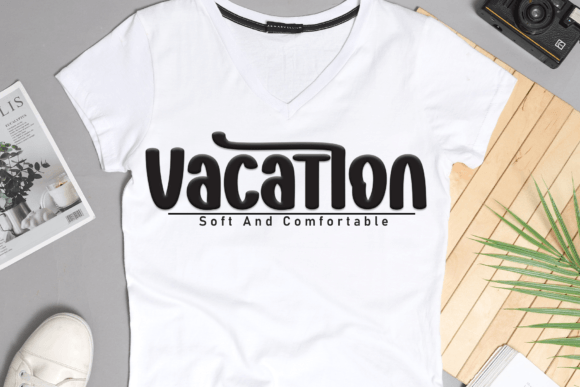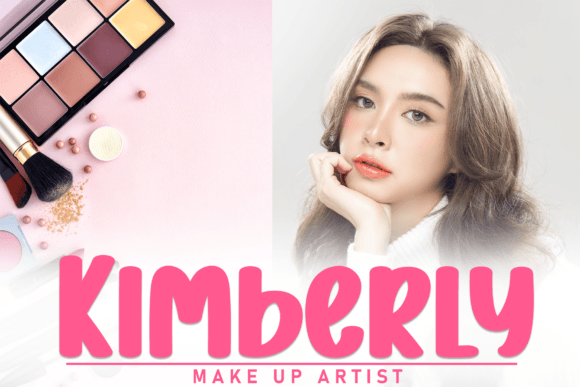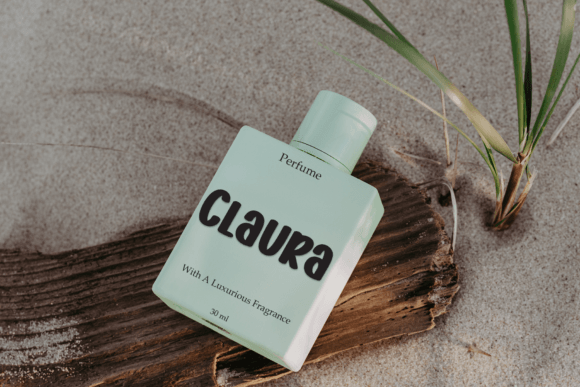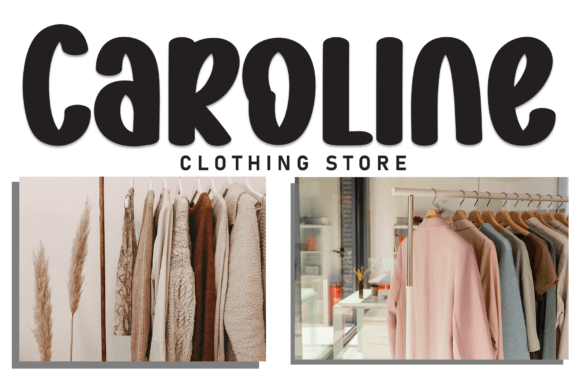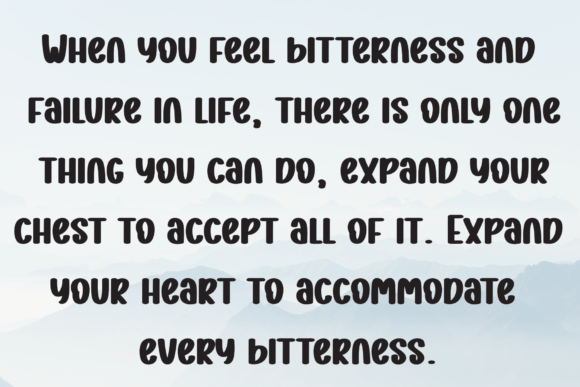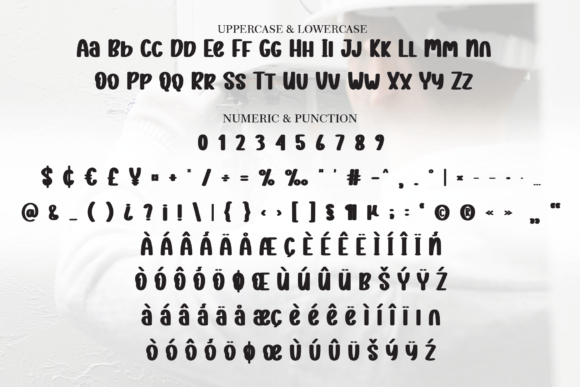
Introduction to Instalation Font
Have you ever been browsing through design inspiration boards, only to come across a beautiful handwritten font that perfectly captures the essence of your creative project? For me, that moment happened when I stumbled upon the Instalation Font. Its sweet and friendly vibe instantly caught my attention, and I knew I had to learn more about it.
As a designer, I can attest to the importance of having a reliable design resource like the Instalation Font. With its fresh and casual style, it’s perfect for writing wedding invitations, cards, or any other design that needs a lovely touch. Whether you’re working on a personal project or a client’s brief, having access to high-quality fonts like Instalation can make all the difference in elevating your design to the next level.
Key Features of Instalation Font
- Unique characteristics include a modern and sleek aesthetic, making it perfect for contemporary design projects.
Honest Review: Instalation Font
As a designer, I’m always on the lookout for high-quality design resources that can elevate my creative projects. Recently, I stumbled upon the Instalation Font, and I’m excited to share my honest review with you.
- ⚠️ Limited character set, which might be a concern for designers who require a comprehensive font library.
Overall, I was impressed with the Instalation Font’s high-quality design and versatility. While it may not be perfect, it’s a solid addition to any designer’s toolkit. If you’re looking for a free font with a transparent background, the Instalation Font is definitely worth checking out.
Getting the Most Out of Instalation Font
Use the Instalation Font in creative projects where a high-quality, transparent background is required. Tips for getting the most out of it include:
- Experiment with different font sizes and styles.
- Combine the font with other design elements, such as images and graphics.
- Use the font in a variety of design projects, including logos, brochures, and websites.
Instalation Font is commonly used in:
- Designing logos and brand identities.
- Creating brochures and flyers.
- Developing websites and web applications.